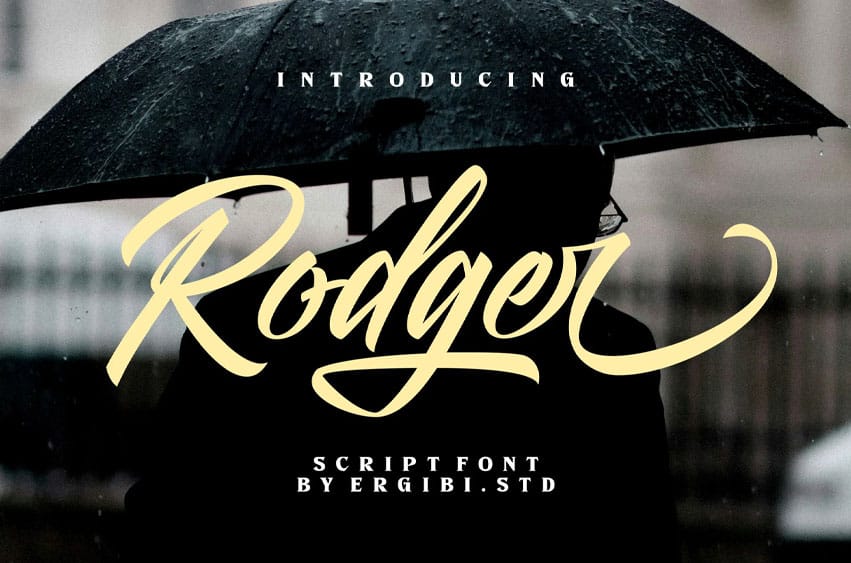
Rodger Font is a modern script font inspired by the expressive energy of urban fashion and contemporary design. It brings a fresh, stylish flow that’s perfect for enhancing your creative projects—whether it’s logos, badges, product labels, headlines, posters, or any work that calls for a touch of refined handwriting.
With a full set of uppercase and lowercase letters, numerals, punctuation, and a wide range of alternates and ligatures, Rodger offers smooth versatility and elegant personality to make your designs stand out with effortless charm.